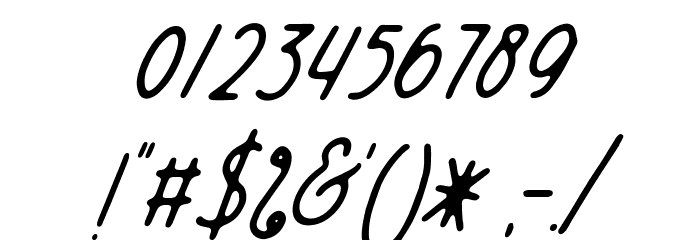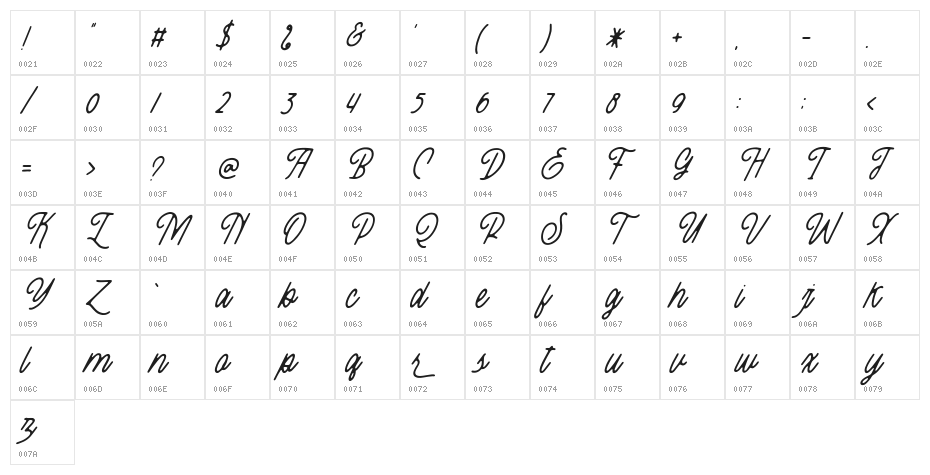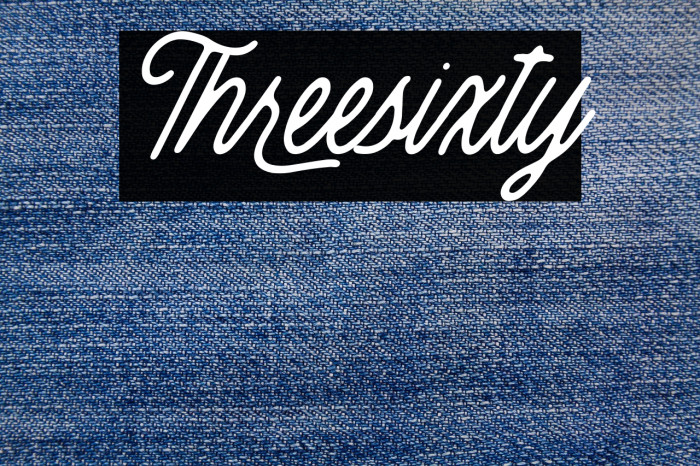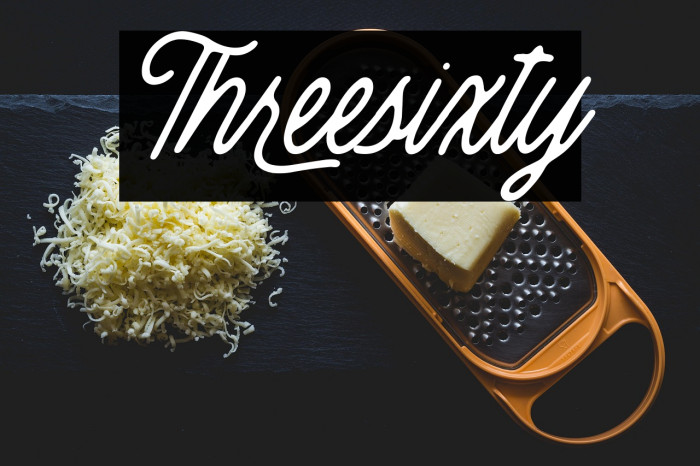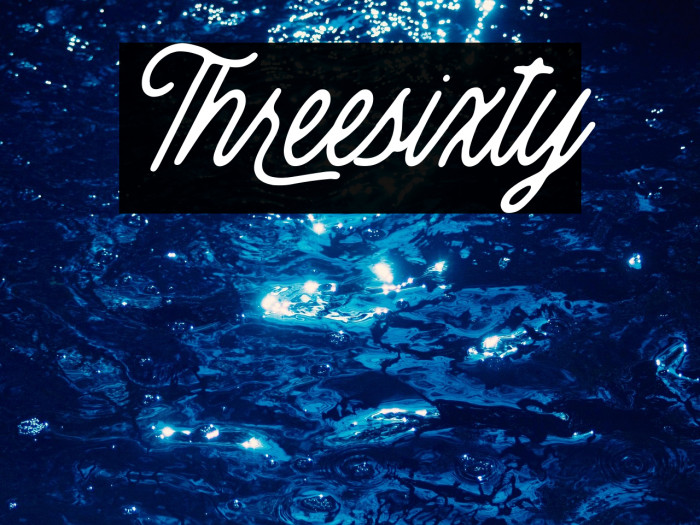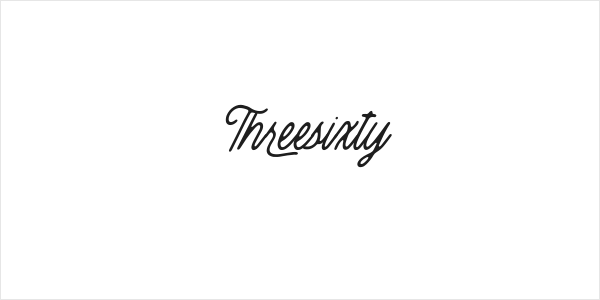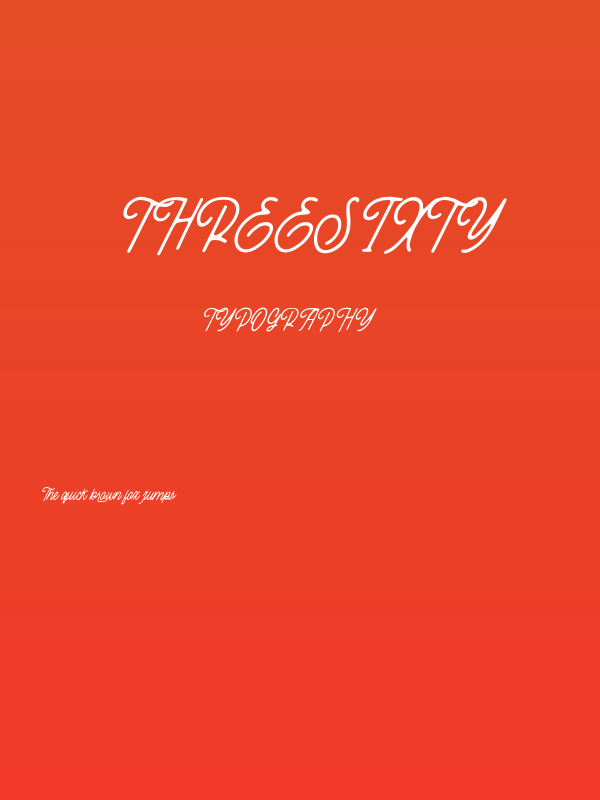
Threesixty Font
Threesixty Description
This font exudes a dynamic and fluid style, characterized by its cursive script with elegant, flowing lines. The uppercase letters are bold and slightly slanted, giving a sense of movement and grace. The lowercase letters maintain a consistent rhythm, with smooth connections between characters, enhancing its handwritten appeal. Numbers and special characters follow the same stylistic cues, ensuring a cohesive look across all elements. The overall appearance is both sophisticated and approachable, making it suitable for a variety of design contexts.
| Proposed Projects | Ideal for wedding invitations, personal branding, greeting cards, and elegant packaging designs. |